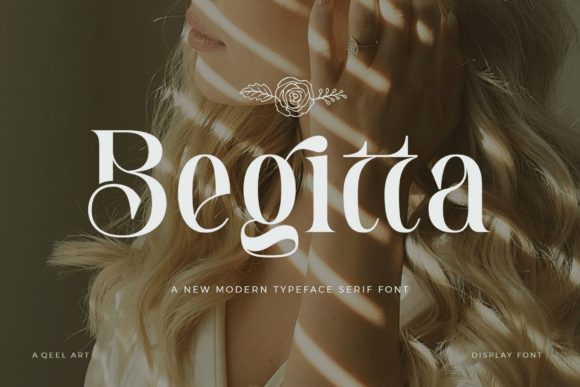
Begitta Font: The Elegant and Bold Serif Font for Your Creative Projects
Begitta font is a stunning serif font that has taken the design world by storm. Its elegant and bold style makes it incredibly versatile, perfect for a wide range of creative projects. In this article, we’ll dive into the world of Begitta font, exploring its features, uses, and benefits. Whether you’re a designer, artist, or simply a creative enthusiast, you’ll fall in love with this gorgeous font.
What is Begitta Font?
Begitta font is a serif font designed to make a statement. Its elegant and bold style is perfect for creating visually stunning designs that capture attention. The font features classic serif elements, with subtle curves and refined lines that give it a sophisticated look. Whether you’re looking for a font for wedding invitations, social media posts, or stationery art, Begitta font is an excellent choice.
Features of Begitta Font
Begitta font boasts an impressive range of features that make it a top choice for designers and creatives. Some of its key features include:
- Elegant and bold style: Begitta font’s unique blend of elegance and boldness makes it perfect for creating stunning designs.
- Versatile: This font is incredibly versatile, suitable for a wide range of creative projects, from wedding invitations to social media posts.
- Classic serif elements: Begitta font features classic serif elements, with subtle curves and refined lines that give it a sophisticated look.
- High-quality design: The font is designed with precision and attention to detail, ensuring a high-quality design that looks great in any context.
Uses of Begitta Font
Begitta font is perfect for a wide range of creative projects, including:
- Wedding invitations: Create stunning wedding invitations that set the tone for the big day.
- Stationery art: Add a touch of elegance to your stationery art with Begitta font.
- Social media posts: Make your social media posts stand out with Begitta font’s bold and elegant style.
- Logos and branding: Use Begitta font to create a unique and memorable logo or brand identity.
- Packaging design: Add a touch of sophistication to your packaging design with Begitta font.
Benefits of Using Begitta Font
Using Begitta font offers a range of benefits, including:
- Unique and memorable designs: Begitta font helps you create unique and memorable designs that capture attention.
- Elegance and sophistication: The font’s elegant and bold style adds a touch of sophistication to any design.
- Versatility: Begitta font is incredibly versatile, suitable for a wide range of creative projects.
- High-quality design: The font’s high-quality design ensures a professional-looking result.
How to Use Begitta Font
Using Begitta font is easy. Here are some tips to get you started:
- Choose the right size: Choose a size that suits your design, taking into account the context and purpose of the project.
- Experiment with colors: Try out different colors to find the perfect match for your design.
- Pair with other fonts: Experiment with pairing Begitta font with other fonts to create a unique and interesting design.
- Pay attention to spacing: Pay attention to spacing to ensure a clean and professional-looking design.
Begitta font is a stunning serif font that offers a unique blend of elegance and boldness. Its versatility, high-quality design, and range of features make it perfect for a wide range of creative projects. Whether you’re a designer, artist, or simply a creative enthusiast, Begitta font is sure to become a favorite. So why not give it a try and see the amazing results for yourself?